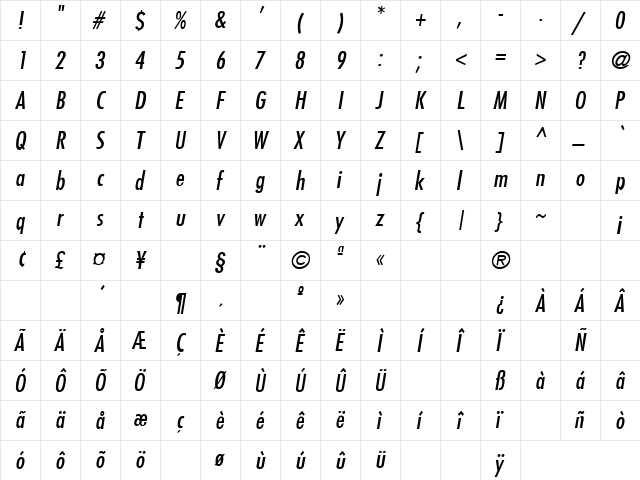
Thank You 3 Regular
Design Context for Thank You 3 Typeface
Thank You 3 is a composed and adaptable typeface that performs quietly and consistently across a wide range of design contexts.